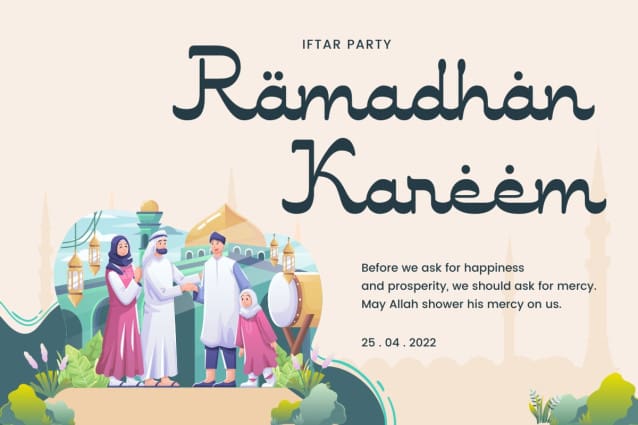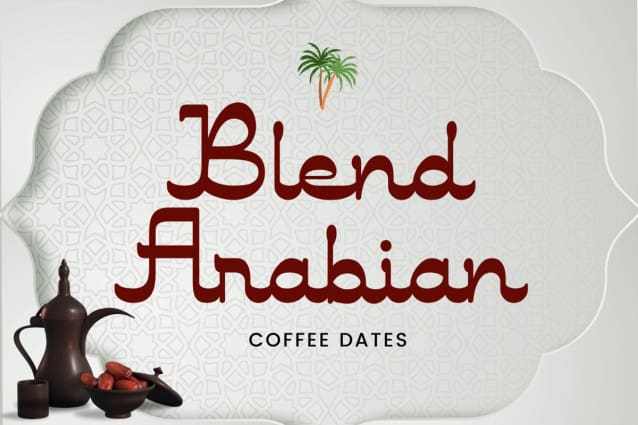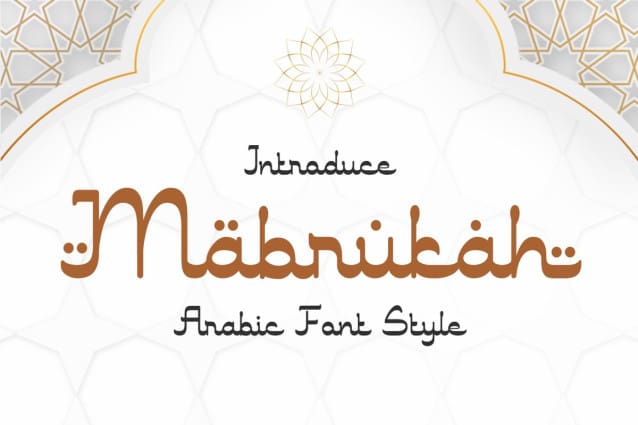
Mabrukah Arabic Font
Mabrukah Arabic Font, a font inspired by the sacred month of Ramadan. With its elegant letterforms and intricate details, this font captures the essence of spirituality and celebration. Perfect for Ramadan-themed designs such as greeting cards, posters, or social media graphics, “Mabrukah Arabic” adds a touch of elegance and reverence to your projects, honoring the significance of this holy time. Let this font enhance your Ramadan-related creations with its timeless beauty and cultural significance.